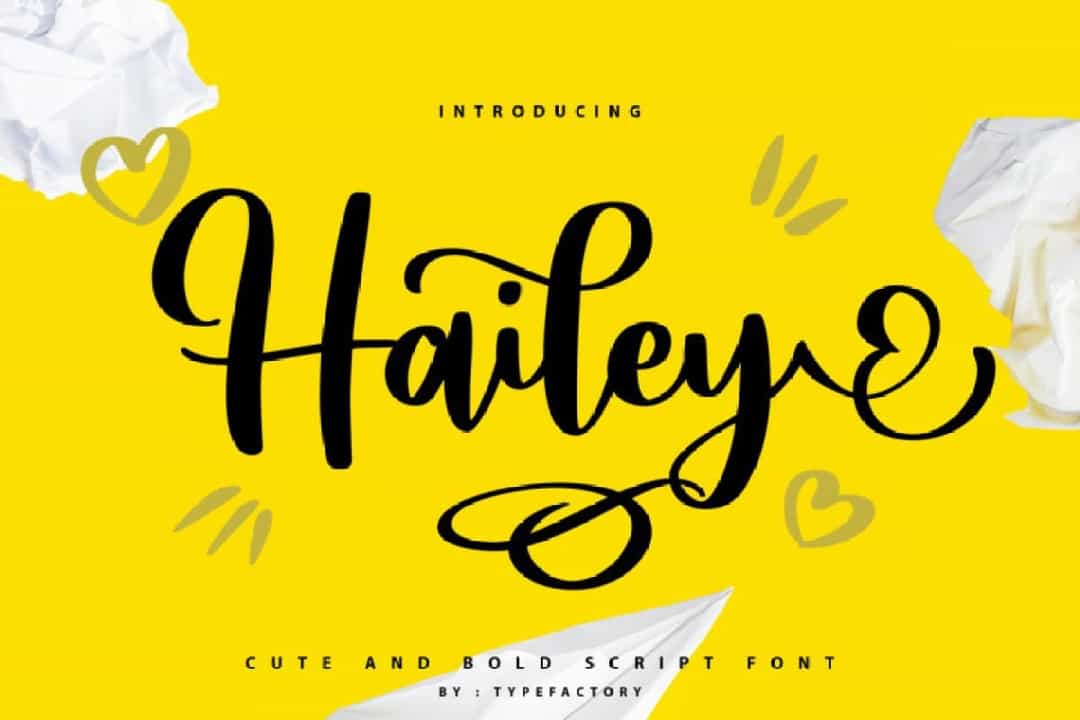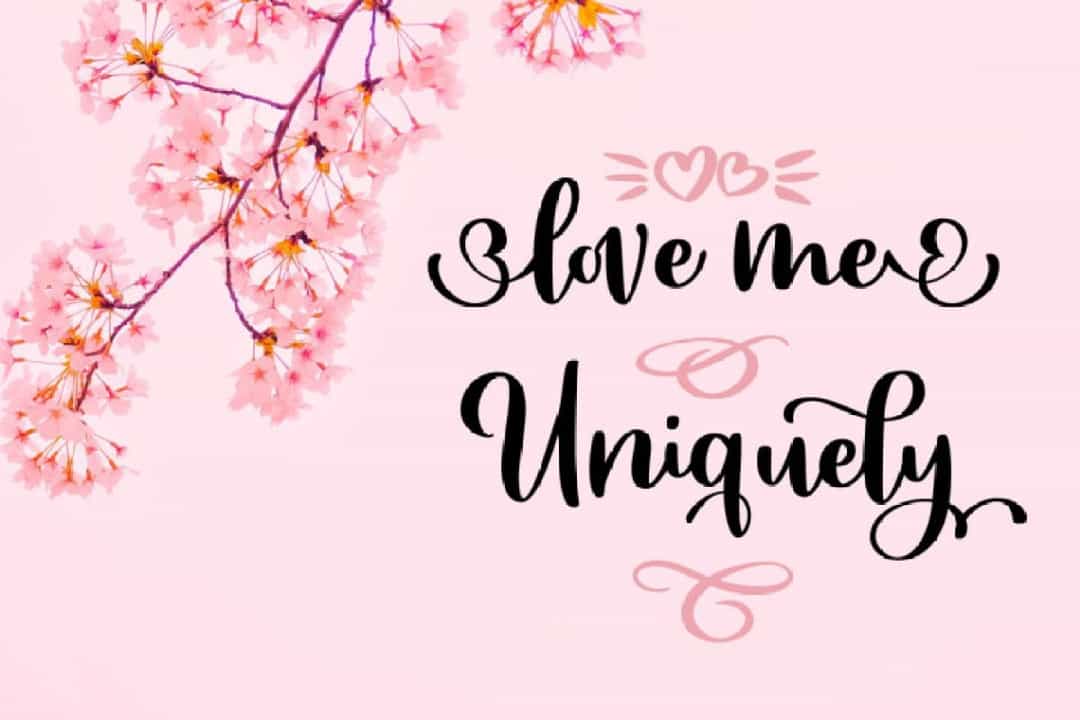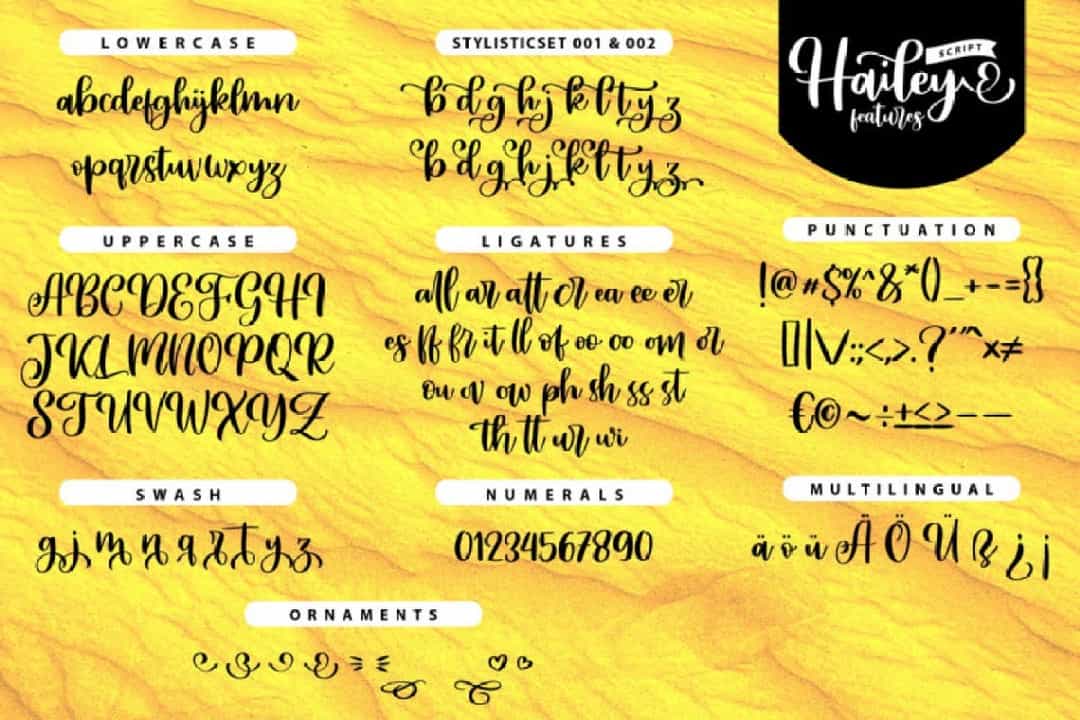
Hailey is a beautiful and charming bold calligraphy style font with characters that are attached at the base. It has a casual look though somewhat elegant to make many products such as wedding invitation, logos, letters, headlines, t-shirts, labels, signs, newsprint, posters, badges and many more.